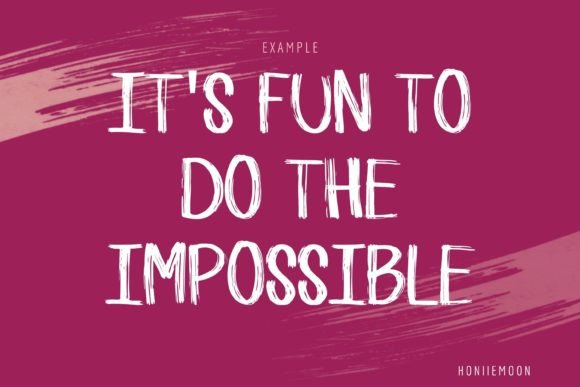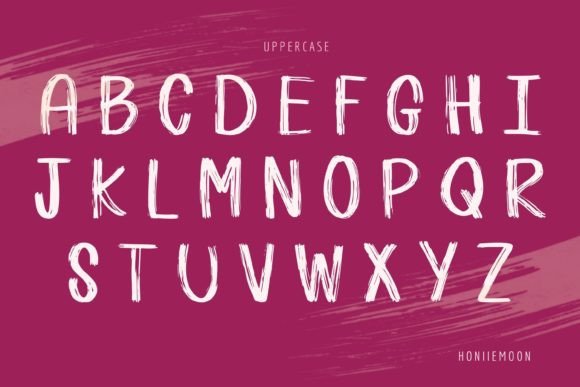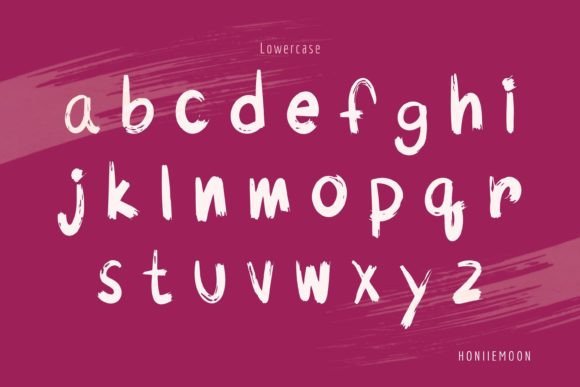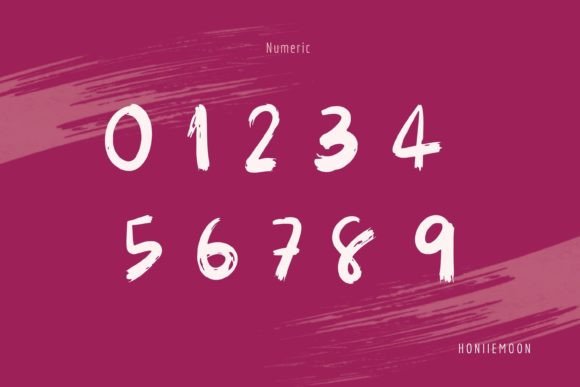
Introduction to Flick the Brush Font
Flick the Brush is a cool and fun display font.
It embodies playfulness and authenticity and it will enhance each of your designs The only limit is your imagination.
Key Features of Flick the Brush Font